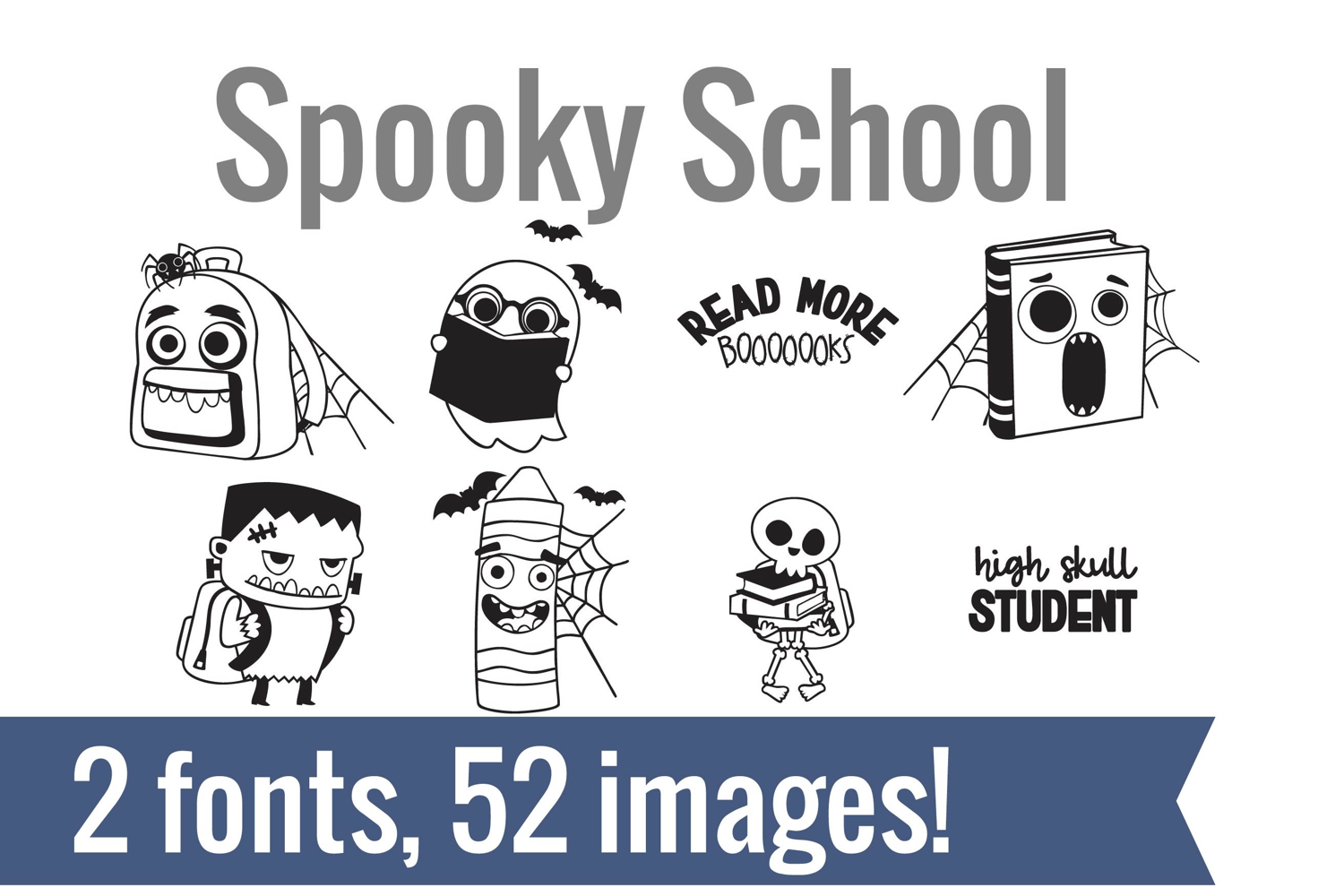
Spooky School Dingbats
Unlock endless creativity with two perfectly coordinated fonts! There are two dingbat fonts in this bundle, both featuring the cutest Halloween characters and imagery with an emphasis on school and school supplies.